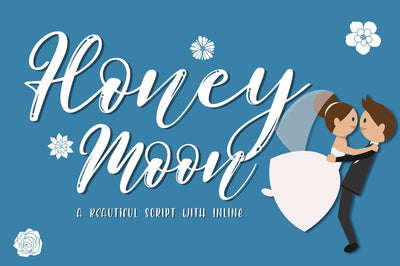
Honeymoon Beautiful Handwritten Font with Inline Effect
Introduce my New Product 'Honeymoon' The new fresh handmade script font
A hand lettered font with inline effect
- Modern Calligraphy with inline effect